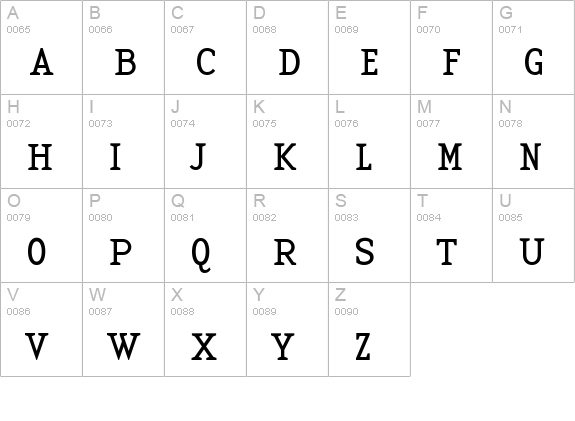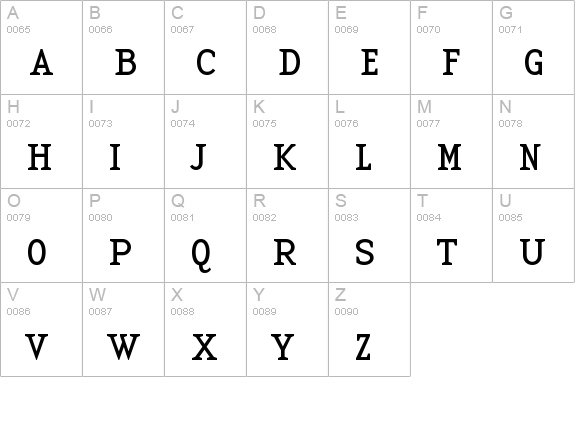
BaseTwelveSerifSmallcaps Font Details
BaseTwelveSerifSmallcaps is a sophisticated and elegant font that brings a touch of class to any design project. This unique typeface features small caps with a distinctive serif style, giving it a timeless and refined look. Perfect for adding a touch of sophistication to invitations, logos, and other design projects, BaseTwelveSerifSmallcaps is a versatile font that can adapt to a variety of contexts. What makes BaseTwelveSerifSmallcaps even more appealing is that it is available for free download at FontsMarket.com. This means that you can easily access this high-quality font without any cost, making it a valuable addition to your font library. Whether you're a graphic designer looking to elevate your projects or a hobbyist searching for the perfect font for a special occasion, BaseTwelveSerifSmallcaps is sure to impress with its timeless elegance and versatility. Download it today and take your designs to the next level!